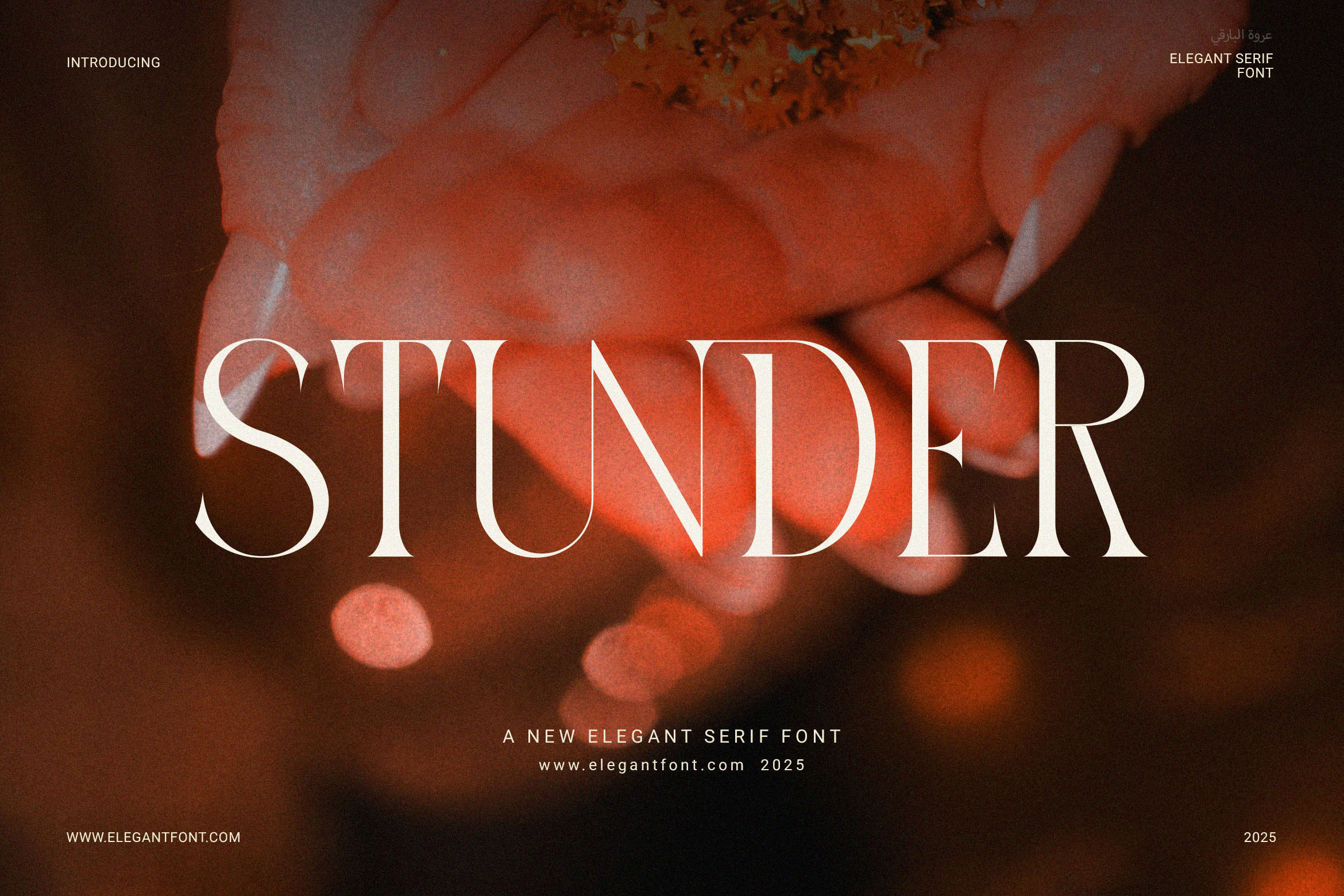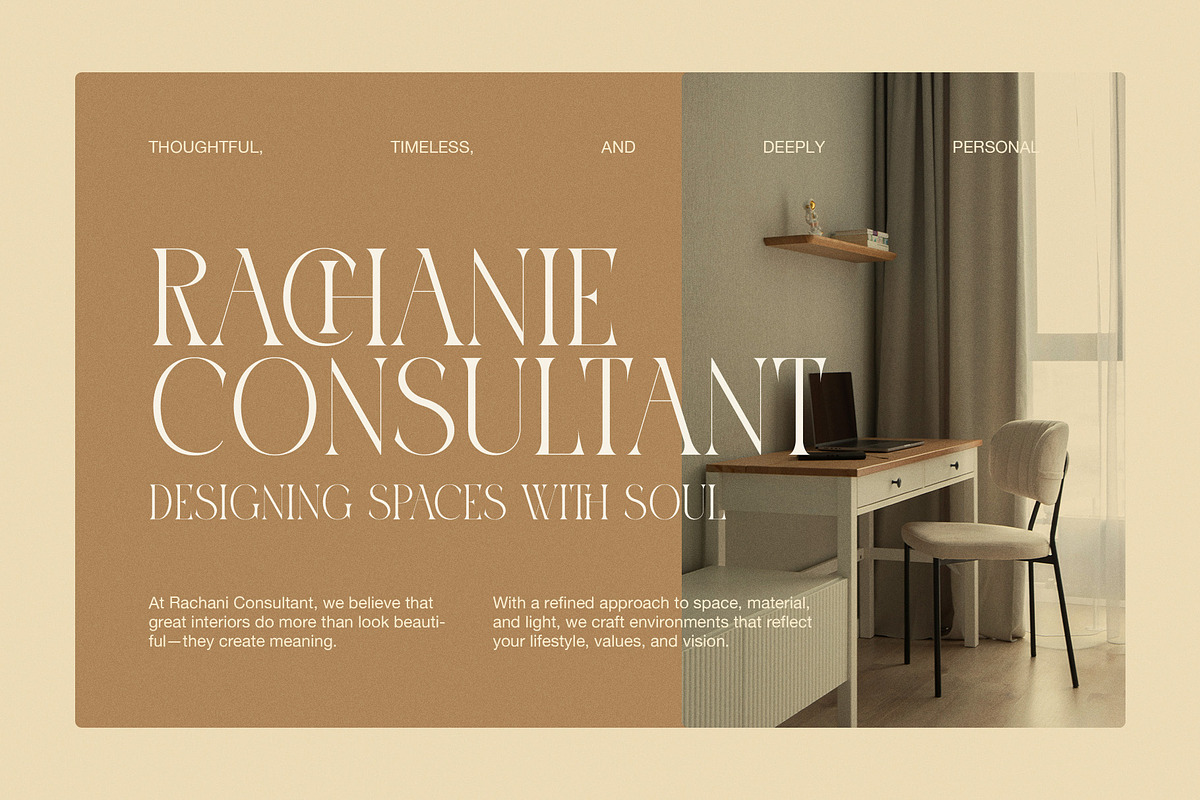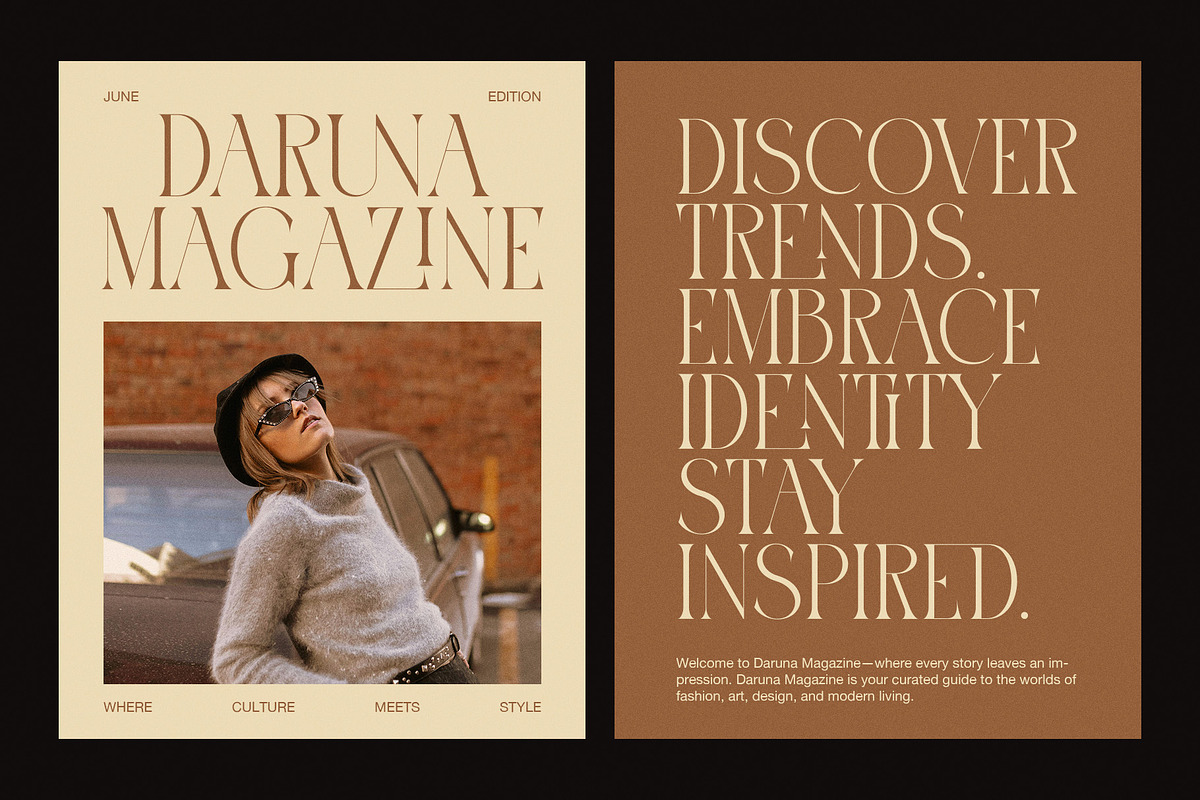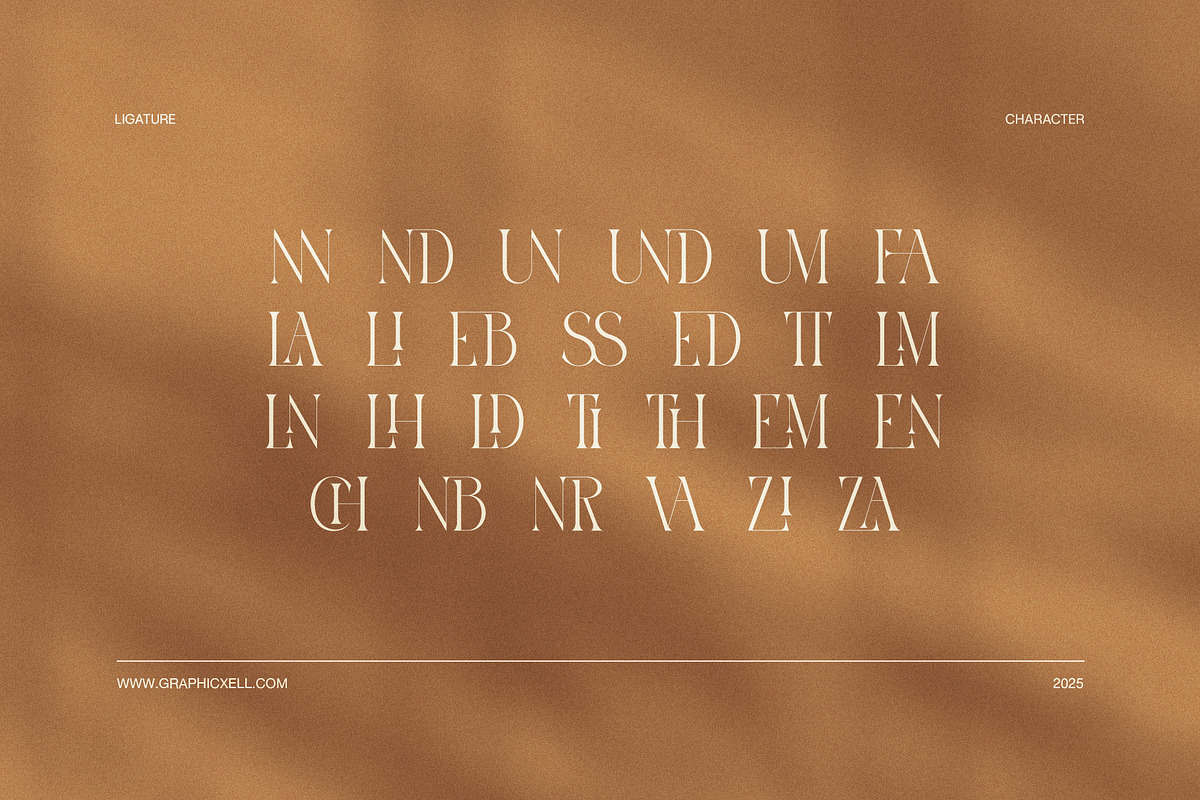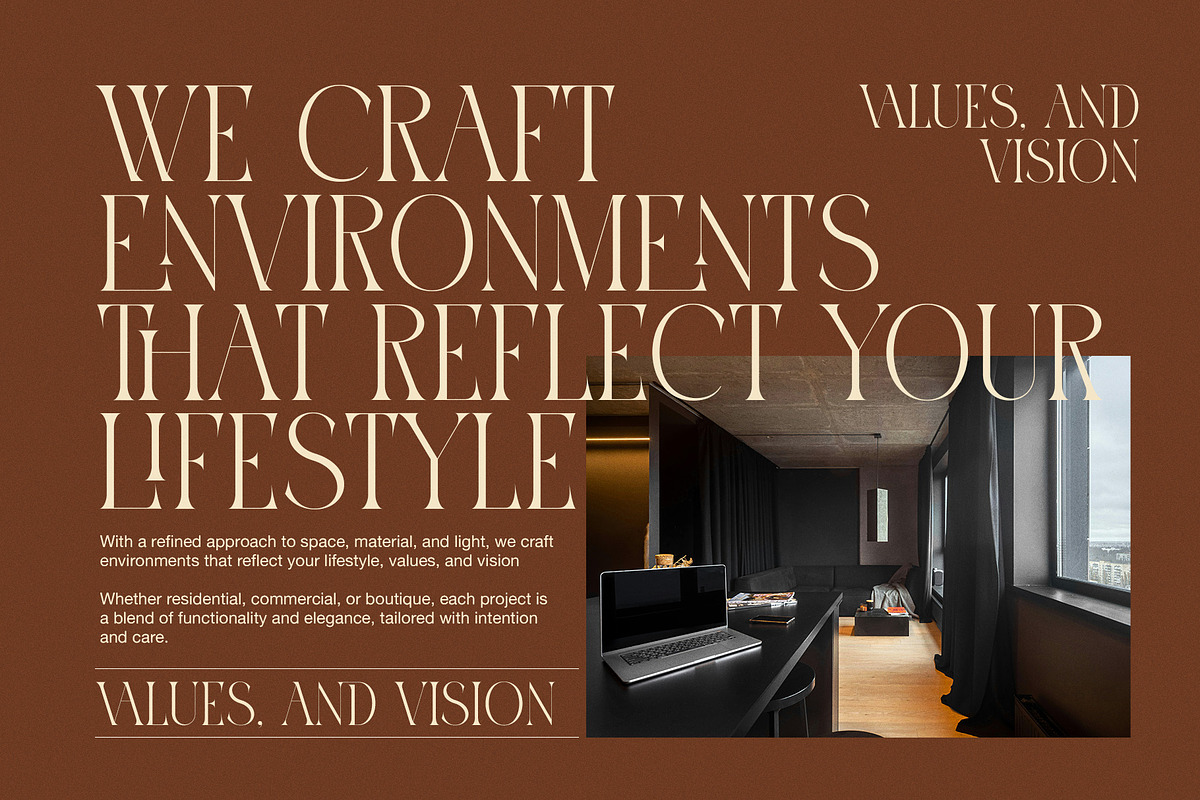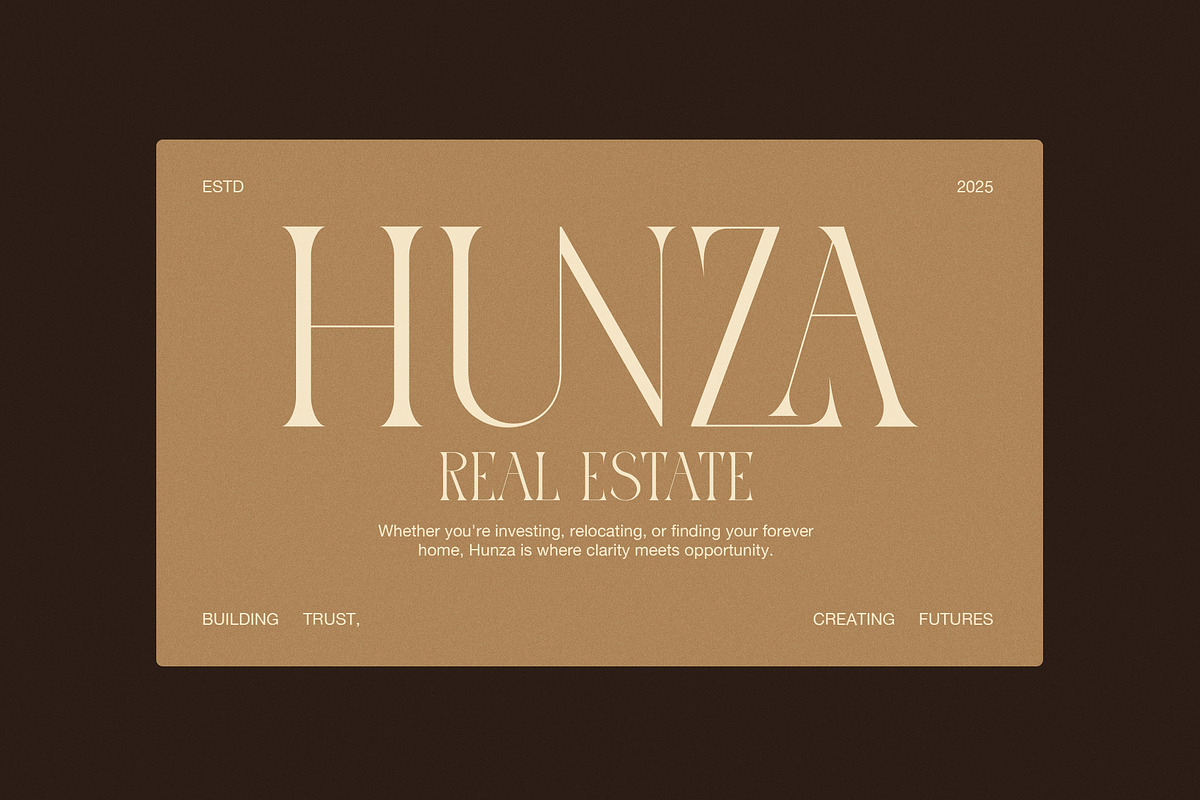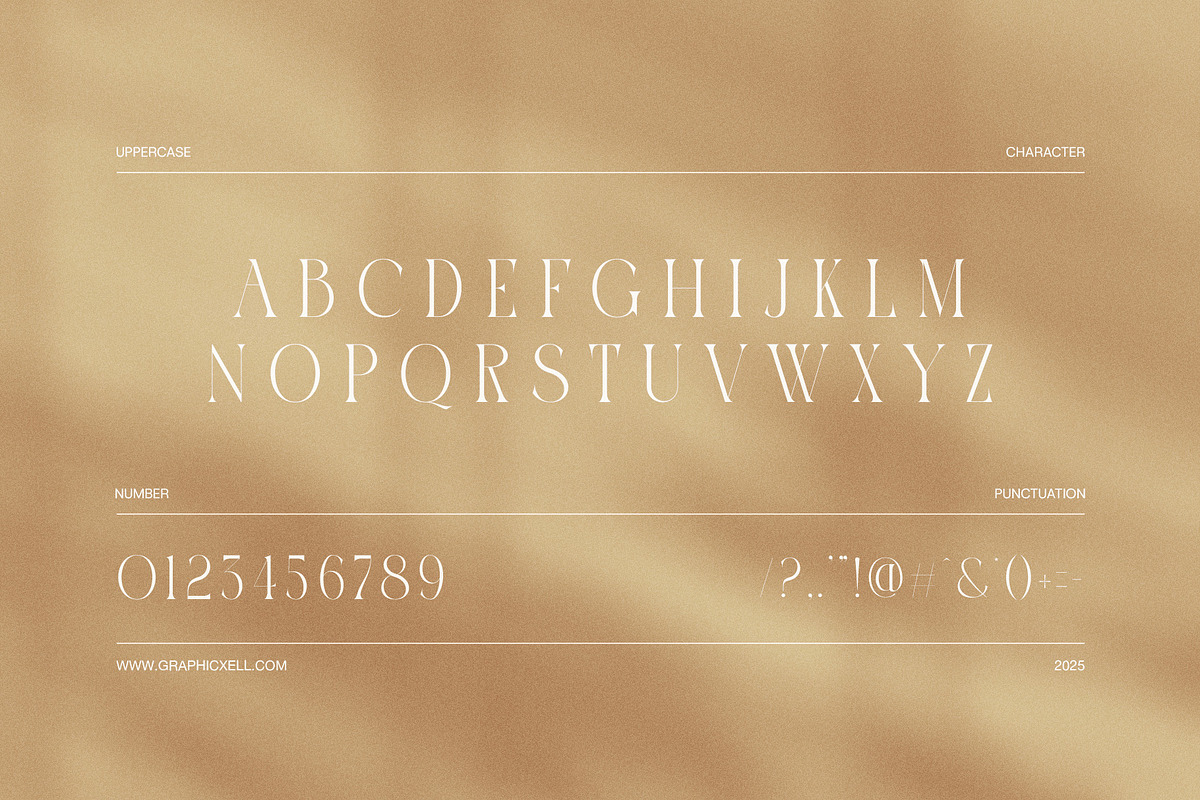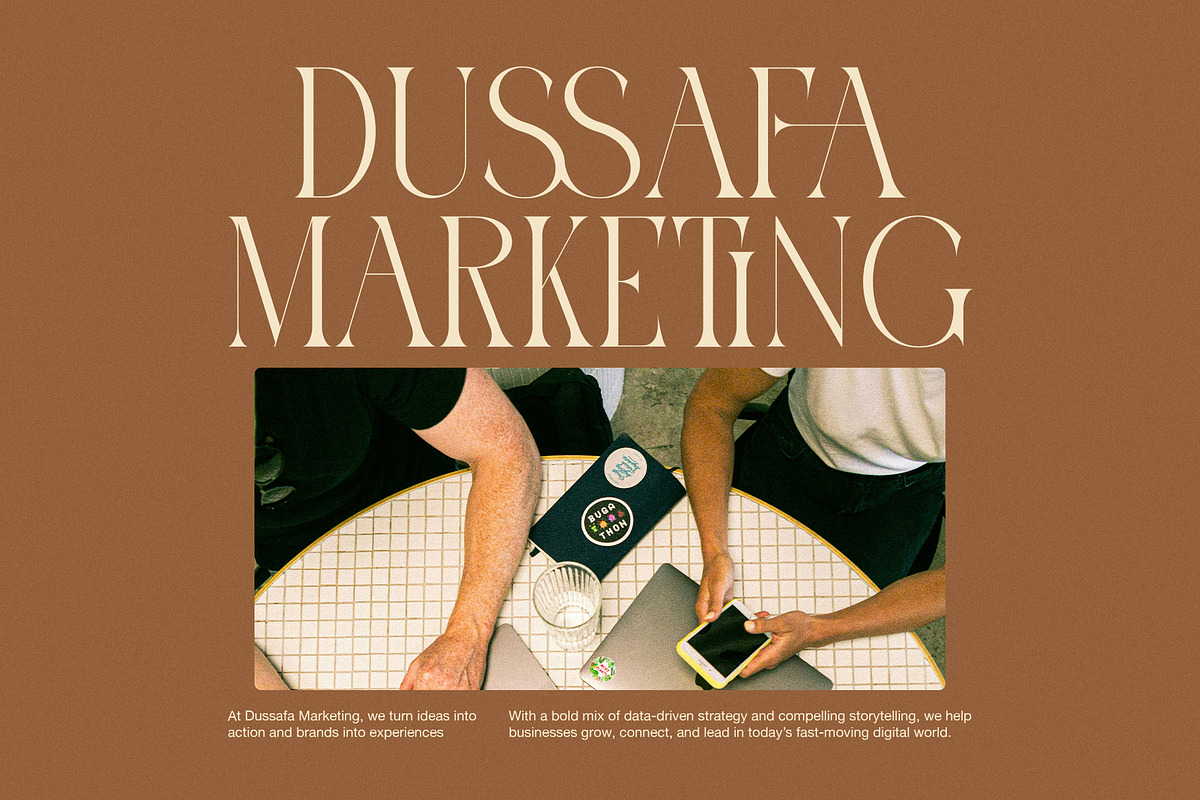
Stunder Modern Elegant Serif Font
Stunder is a modern elegant serif font that combines luxury, clarity, and visual strength in a single refined design. Its letterforms feature high contrast between thick stems and fine hairlines, which immediately creates a sophisticated appearance. At the same time, the tall proportions and graceful curves give the font a light, airy feel. Therefore, it stands out beautifully in large headlines while remaining clean and readable.
In the example layouts, Stunder demonstrates excellent performance across editorial, branding, and advertising designs. For instance, magazine covers appear polished and stylish because the uppercase characters feel confident yet elegant. Meanwhile, marketing layouts gain a premium tone, thanks to the sharp serifs and balanced spacing. As a result, the font communicates professionalism without looking rigid.
Another key strength is its versatility. On warm backgrounds, the type looks inviting and refined. However, on darker imagery, it becomes bold and dramatic. In addition, the carefully crafted ligatures add subtle personality, which enhances visual flow in display text. Because of these details, Stunder works exceptionally well for modern luxury projects.
Stunder is ideal for many creative applications, including:
Fashion magazines and editorial headlines
Luxury branding and logo design
Real estate and interior design marketing
Beauty and lifestyle packaging
Elegant websites and landing pages
Social media posts and advertisements
Furthermore, designers will appreciate how easily this font pairs with minimalist sans-serif typefaces. This combination creates a clean hierarchy while keeping the overall design contemporary. Consequently, Stunder supports both classic and modern visual styles.
Overall, Stunder delivers a perfect balance between elegance and impact. It attracts attention without overwhelming the composition. Whether used for print or digital media, it conveys trust, quality, and style at first glance. If you need a serif font that feels premium yet approachable, Stunder provides a reliable and beautiful solution.